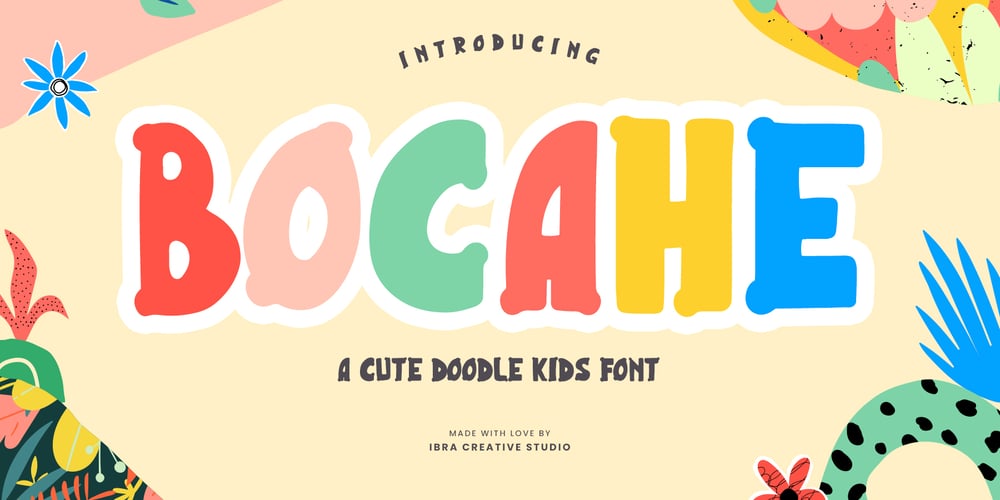
Bocahe Font Family was designed by Roisatul Azizah and published by IbraCreative. Bocahe contains 1 styles and family package options. Bocahe, a delightful and whimsical doodle kids font, captures the essence of youthful imagination and playful charm. Each letter in Bocahe is carefully crafted with endearing doodles, resembling the spontaneous drawings of children at play. The font exudes a carefree spirit, making it perfect for projects geared toward a younger audience. Bocahe’s adorable characters bring a sense of innocence to any design, from playful invitations to colorful educational materials. The font’s hand-drawn aesthetic and vibrant personality make it an enchanting choice for conveying joy, creativity, and the boundless wonder of childhood in typographic form.